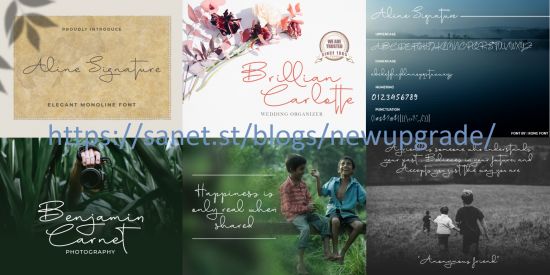
DesignOptimal - Aline Signature Font
DesignOptimal.com - Aline Signature Font
Aline Signature is a magical handwritten font carefully created with a touch of elegance. This is a beautiful combination of timeless elegance and authentic calligraphy. It features an incredibly classic style, while still keeping a friendly feel. Aline Signature is the perfect font for making original and outstanding designs.